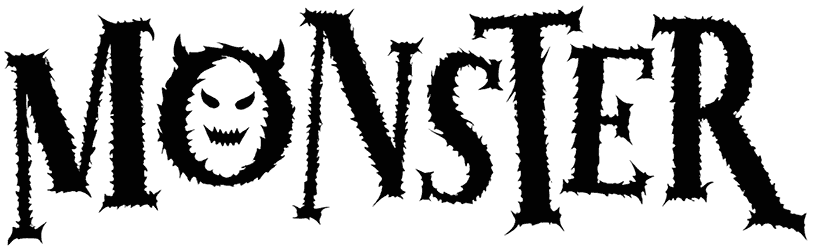
Monster Font
Are you searching for a monster font with a crazy and scary vibe? Monster can help you to make your intended design with this mood and catch a lot of attention. With no offer for lowercase, this Halloween font can throw an exciting and chilling vibe into your designs, for instance, posters, invitations, games, and many others the same.